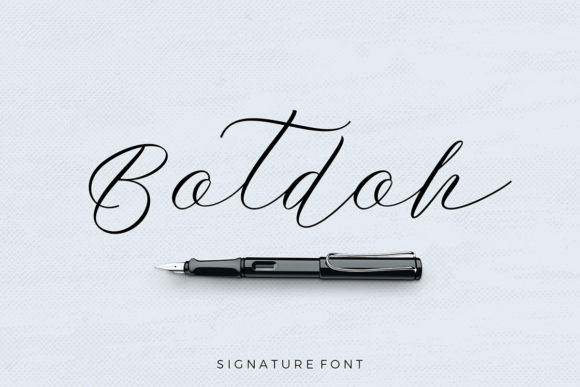
In a world saturated with digital monotony, let Botdoh Font be your beacon of creativity, guiding you toward a realm of captivating designs that leave an indelible mark. This flowing, timeless handwritten font, crafted with meticulous care by the talented Aantebas, is an ode to the art of expression, a symphony of strokes that dance across the screen, evoking emotions and igniting imaginations.
With Botdoh Font, the possibilities are as limitless as your own creativity. Its elegant curves and sweeping strokes lend themselves effortlessly to eye-catching logos that command attention and leave a lasting impression. Whether you're a seasoned designer or just starting your journey into the world of visual communication, Botdoh Font will elevate your work to new heights of sophistication and charm.
Step into a world where signatures become works of art, where branding transcends the ordinary, and where quotes come alive with a newfound vibrancy. Botdoh Font is your gateway to this realm of endless possibilities, a font that breathes life into your words, transforming them into visual masterpieces that captivate and inspire.
Embrace the fluidity of Botdoh Font, let its graceful lines guide your hand as you create logos that resonate with your brand's essence. Its versatility knows no bounds, effortlessly adapting to a multitude of design styles, from classic and elegant to modern and edgy. With Botdoh Font, your designs will transcend trends, becoming timeless expressions of your creativity.
Every letter, meticulously crafted and imbued with a unique touch, dances across the screen, adding a touch of magic to your creations. Experience the joy of designing with a font that feels like an extension of your own artistic vision, a font that allows your personality to shine through in every stroke.
Join the ranks of discerning designers who have discovered the transformative power of Botdoh Font. Elevate your designs to new heights of excellence, create logos that captivate, branding that resonates, and quotes that inspire. Let Botdoh Font be your muse, your creative companion, as you embark on a journey of visual storytelling that leaves an indelible mark on the world.